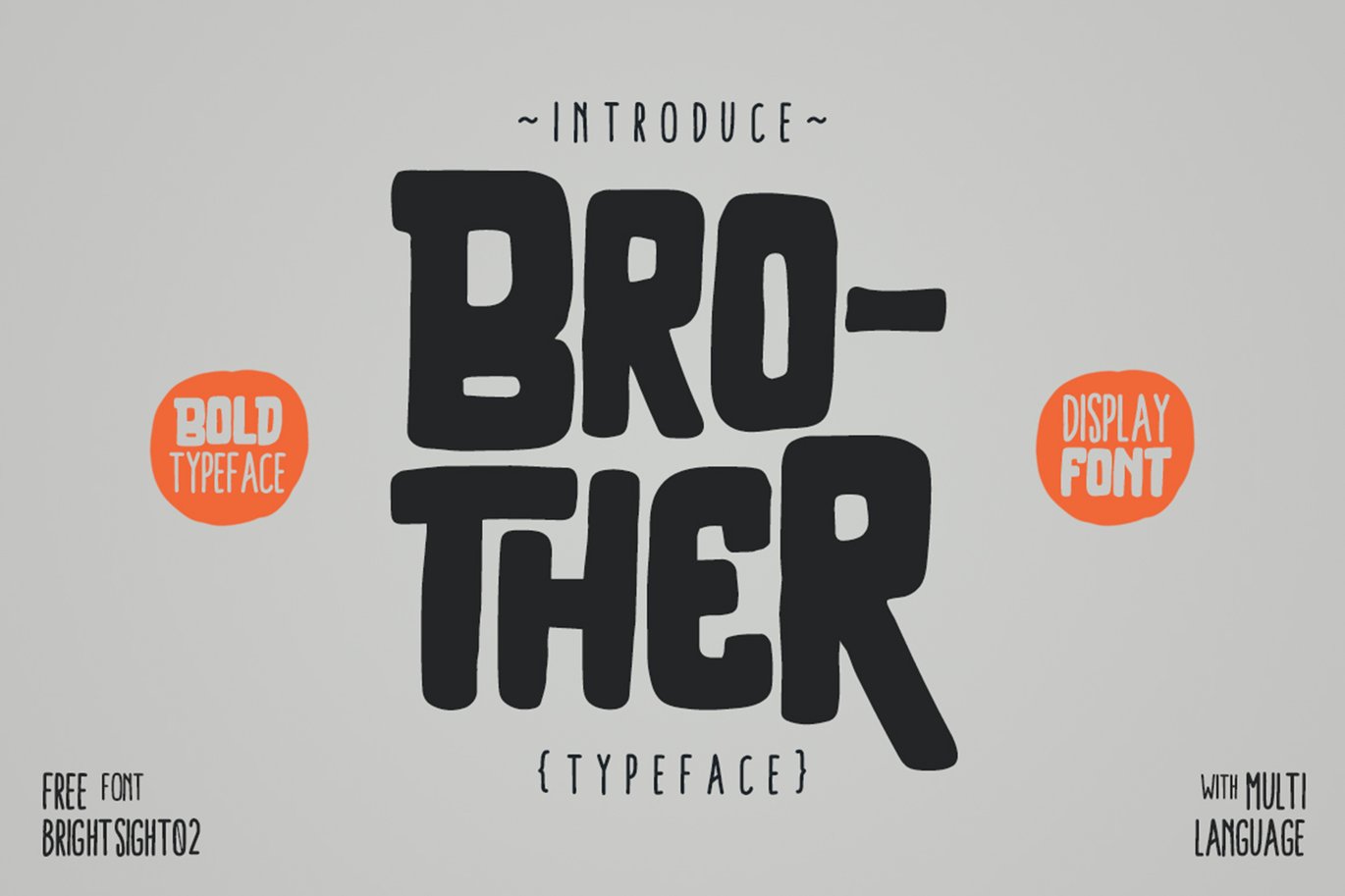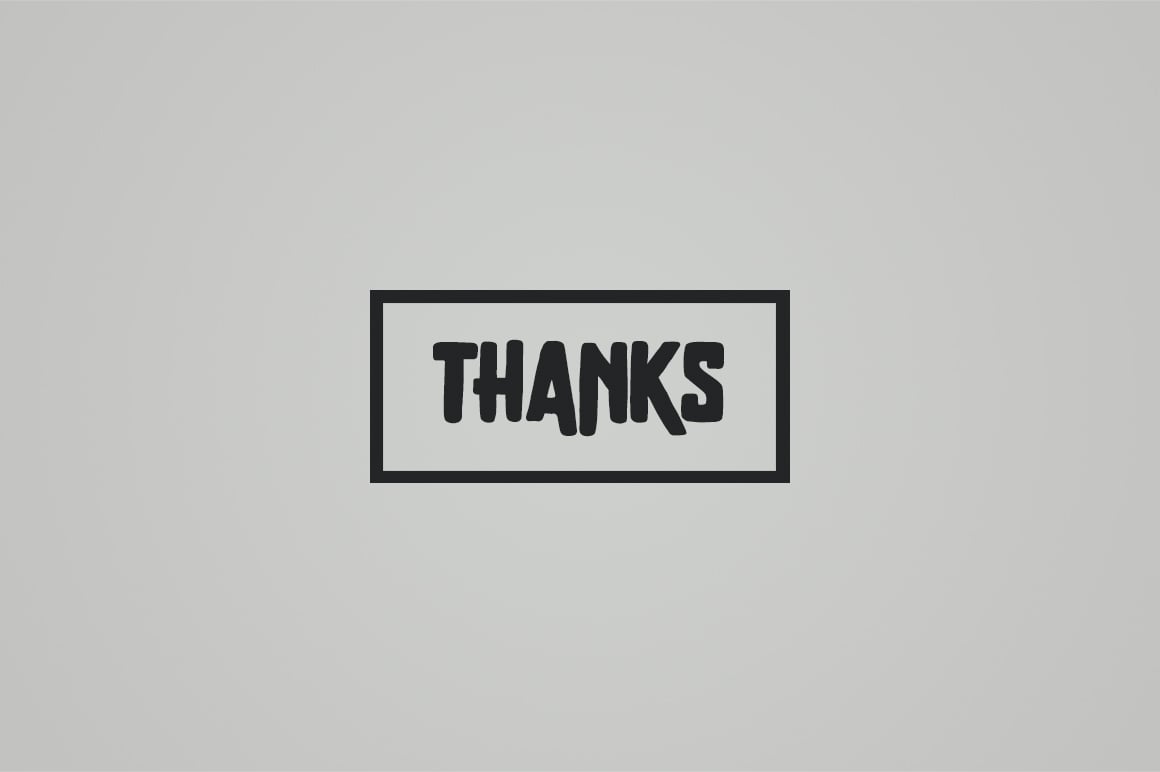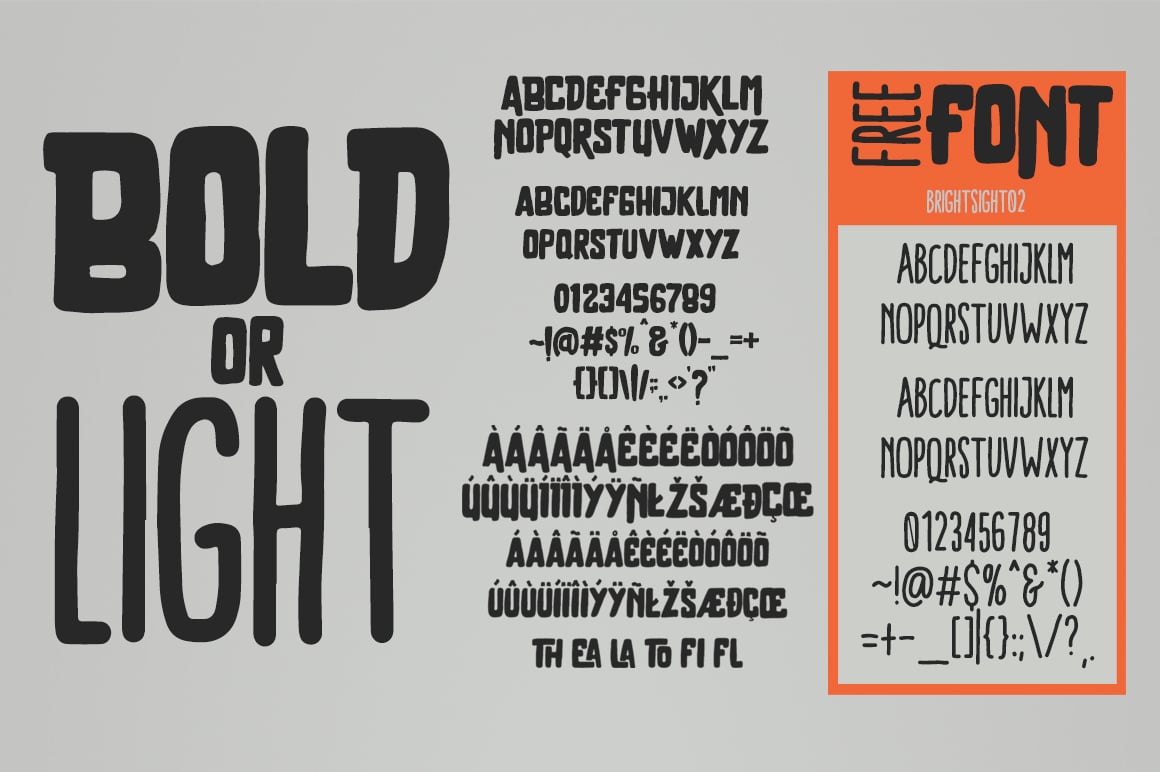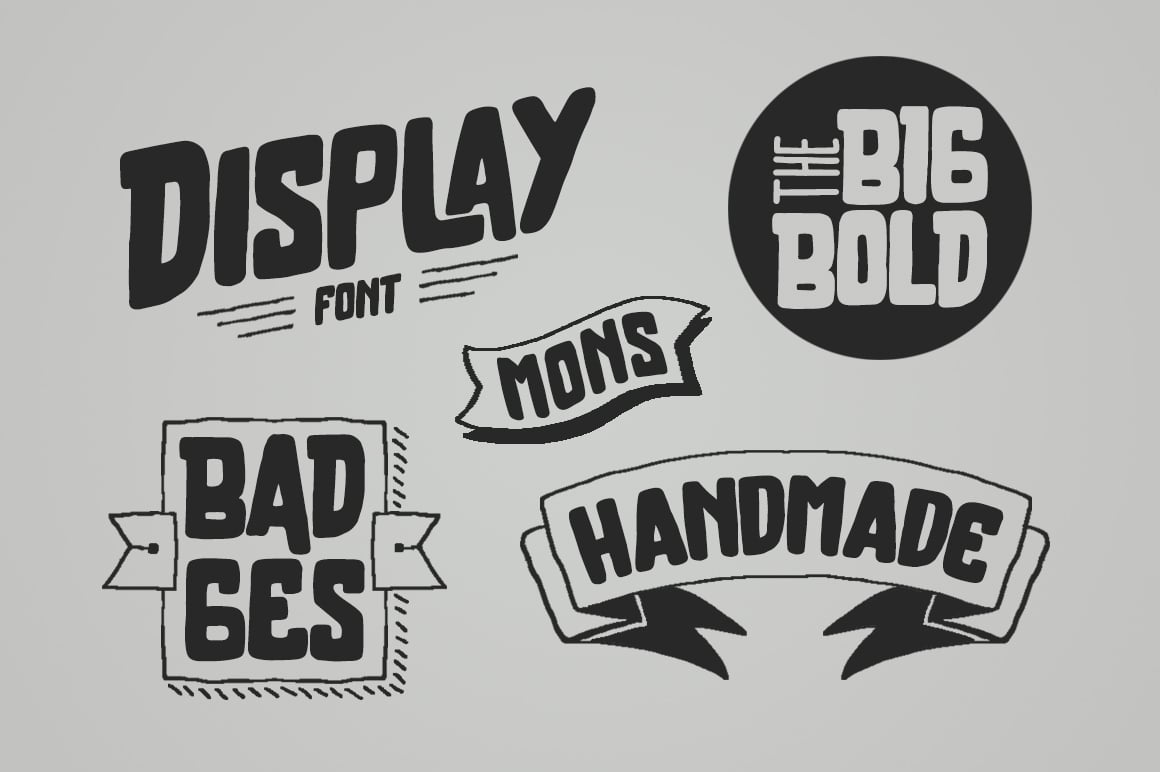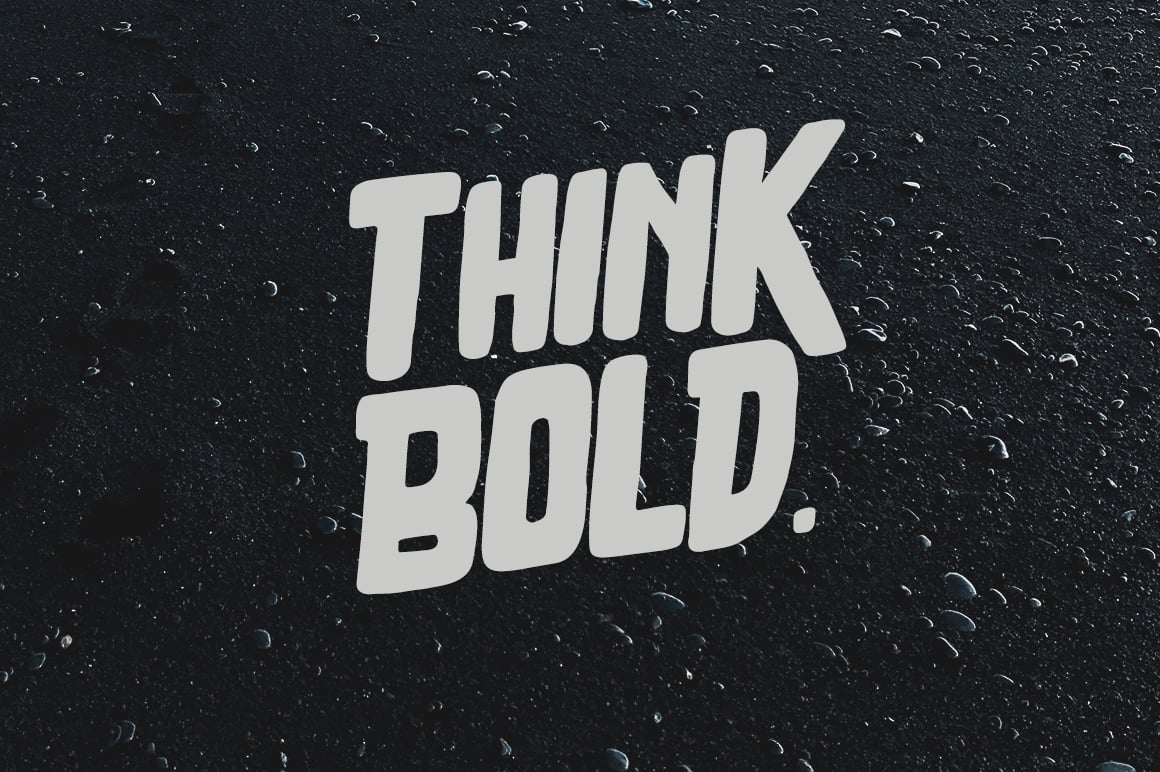
Brother Typeface
*Brother Typeface
BROTHER TYPEFACE can make it easier to convey the message in your design. Use for awesome display, labeling, clothing, movie sceen, poster, movie title, gigs, album covers, logos, and much more.
Uppercases & Lowercases
Numerals & Punctuations
Multi Language Support
Ligatures